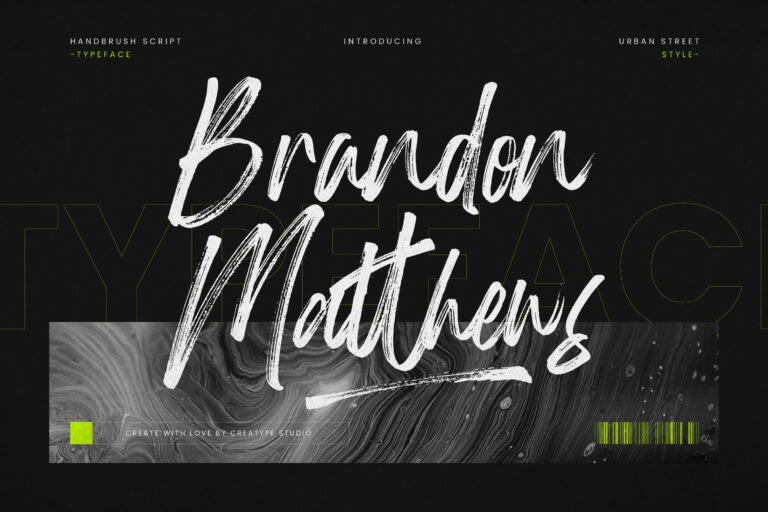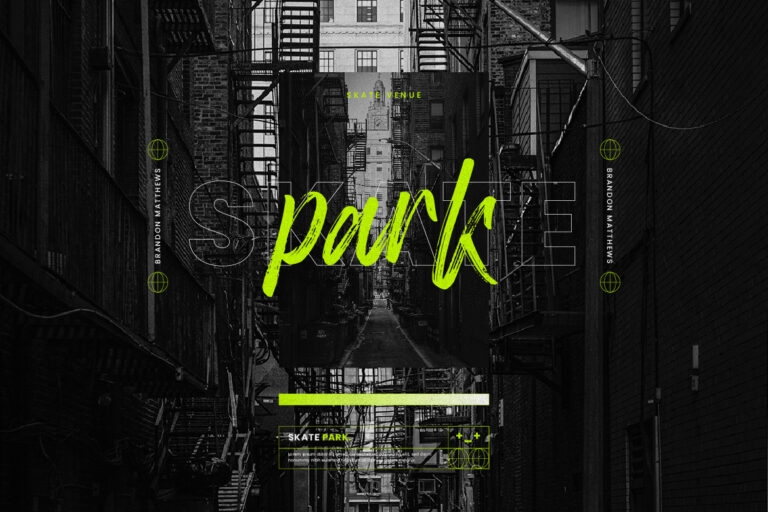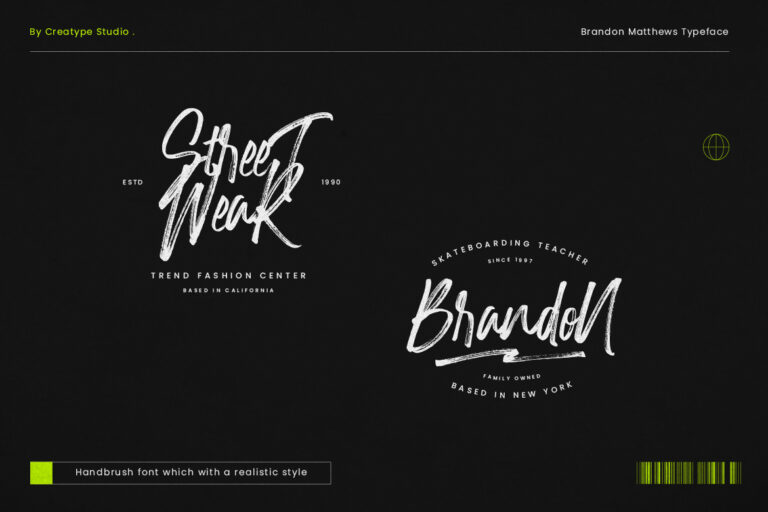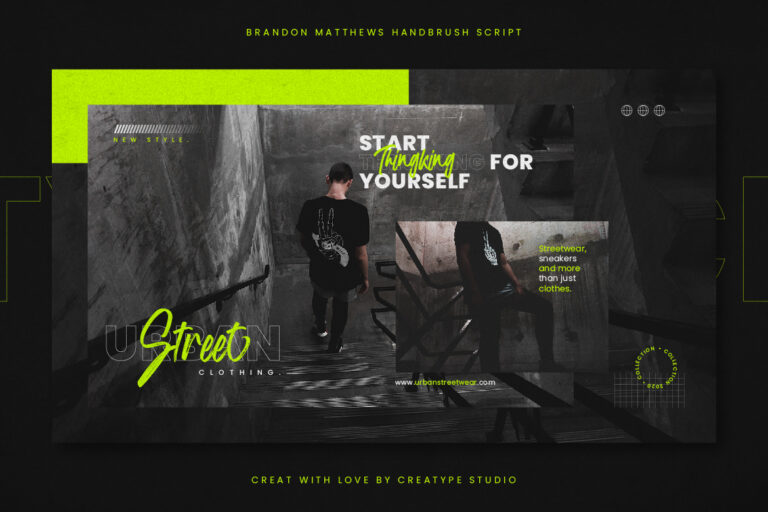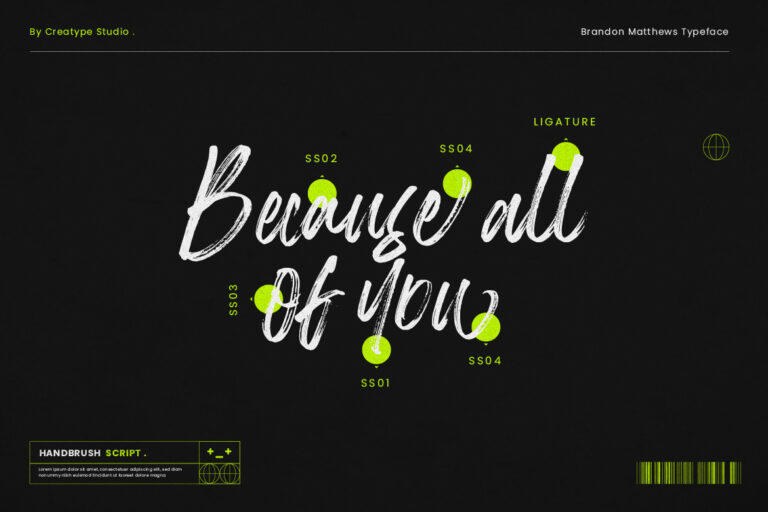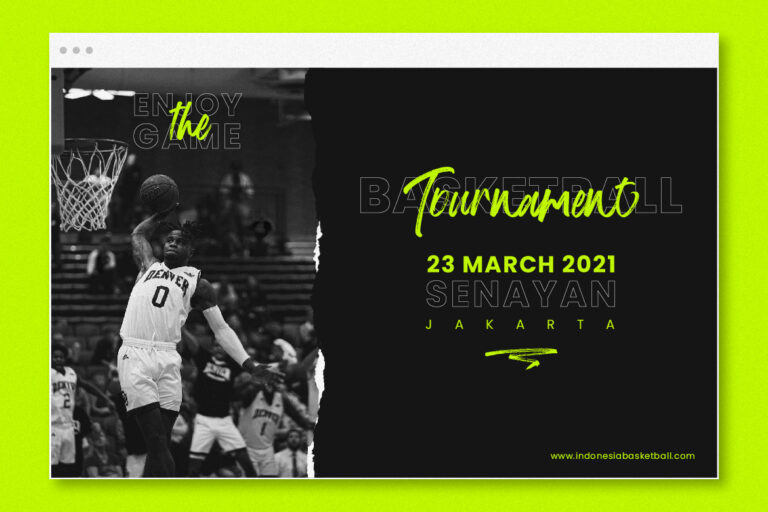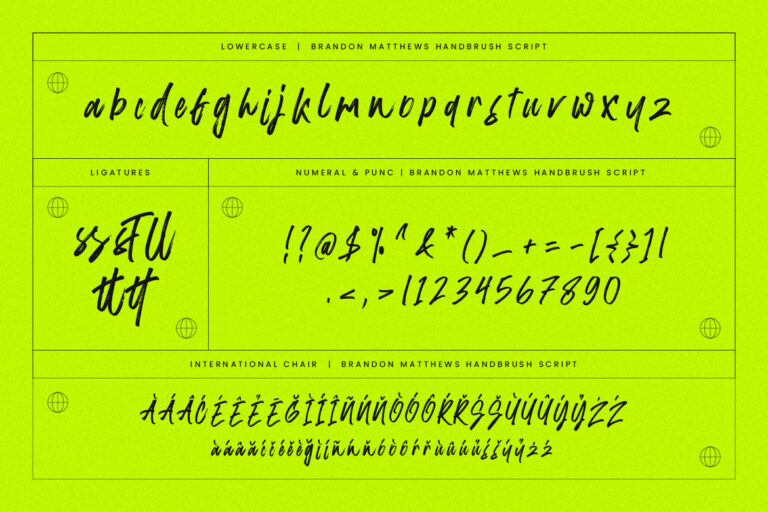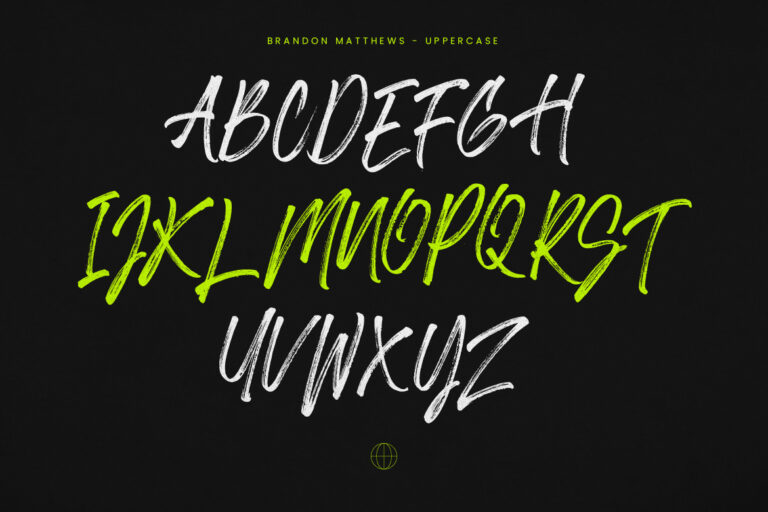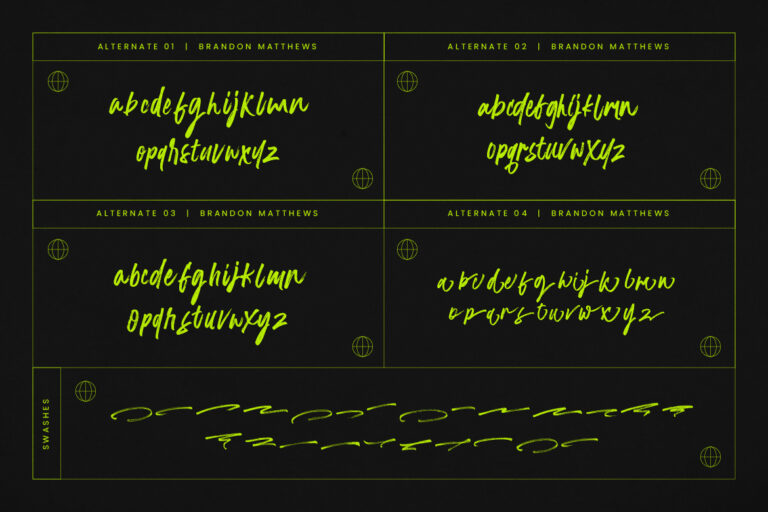
Brandon Matthews is a hand brush script typeface that looks natural and trendy. Natural and trendy hand strokes shown are etched to perfection.
Brandon Matthews is perfect for branding projects, logo, wedding designs, social media posts, advertisements, product packaging, product designs, label, photography, watermark, invitation, stationery and any projects that need handwriting taste.
- Ligature, Alternate & Swashes
Brandon Matthews Handbrush Script